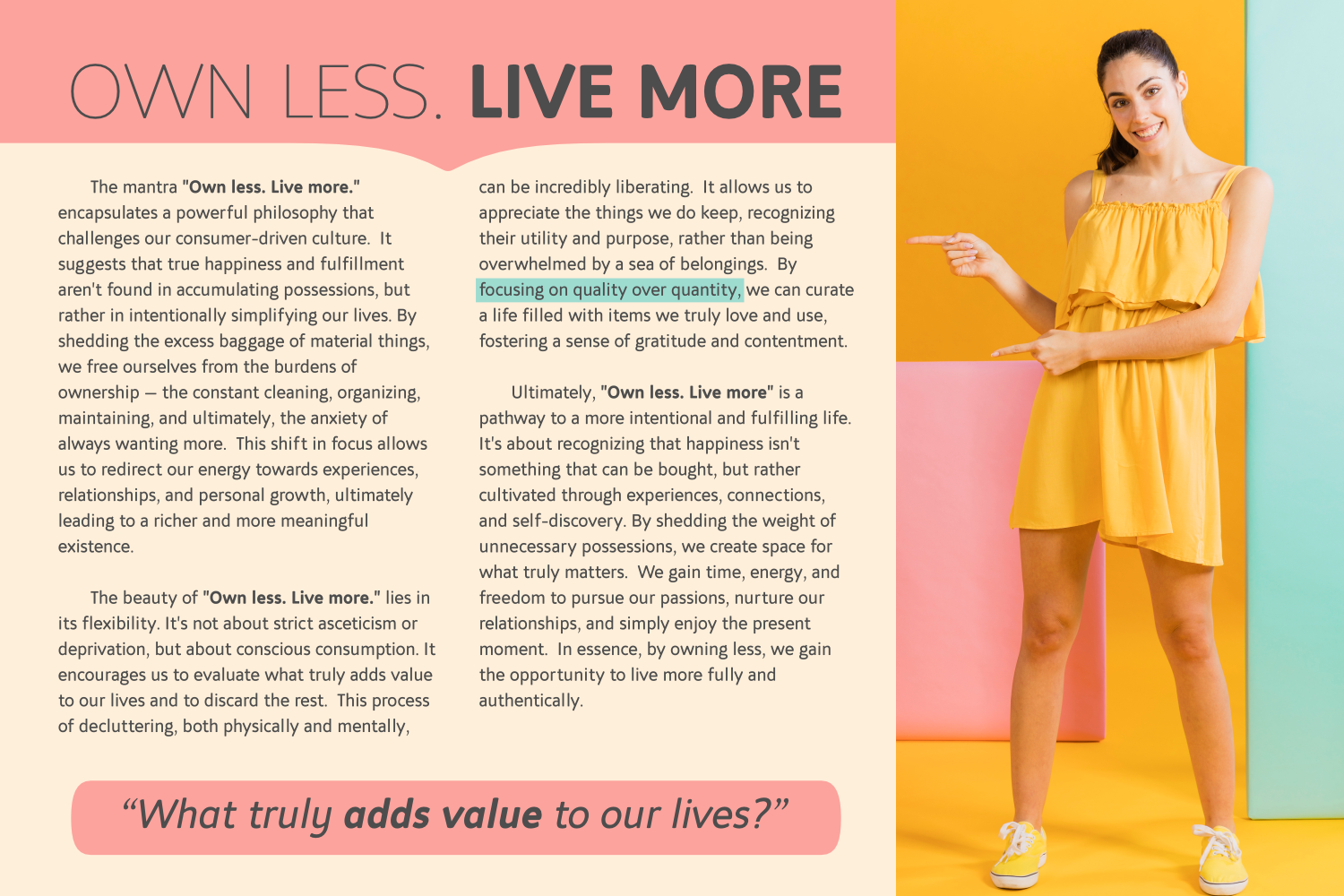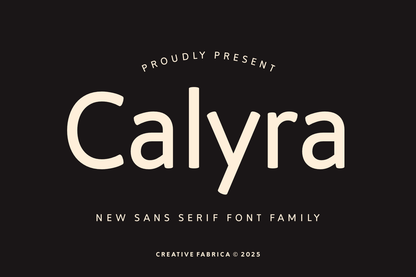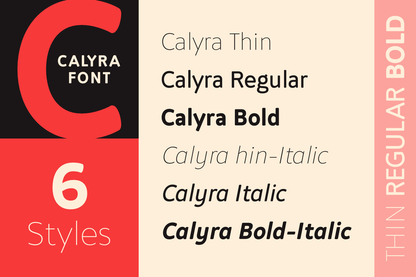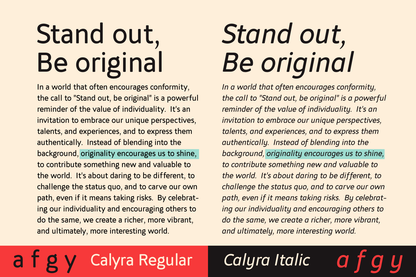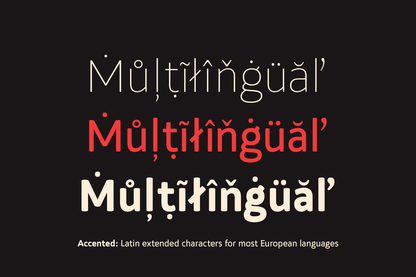
Calyra is a refined sans-serif font family inspired by Calibri, offering a fresh take on modern readability and elegance. With its smooth curves, balanced proportions, and friendly yet professional look, Calyra is perfect for branding, editorial design, presentations, web typography, and corporate materials. Designed with versatility in mind, Calyra comes in six styles—from Thin to Bold, with matching Italics—allowing you to create dynamic and engaging designs. Its clean, modern aesthetic ensures clarity in both digital and print formats, while its multilingual support makes it a global-ready typeface. |